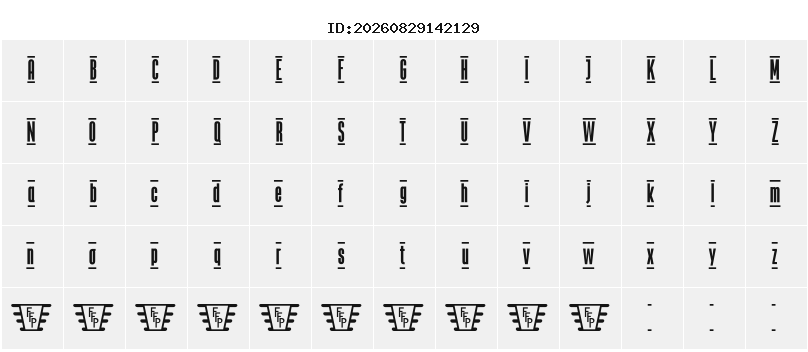
• Font Name: The Juke Box
• Designer: Fernando Haro
• Manufacturer: deFharo
• Description: The Juke Box es una tipografía sans condensada rodeada de un marco tipo caja, contiene también 12 juegos de cierres de caja con estilo JukeBox '50.
The Juke Box.otf is a modern, elegant sans-serif font designed for ultimate readability and visual harmony. Perfect for branding, headlines, web design, and print materials.